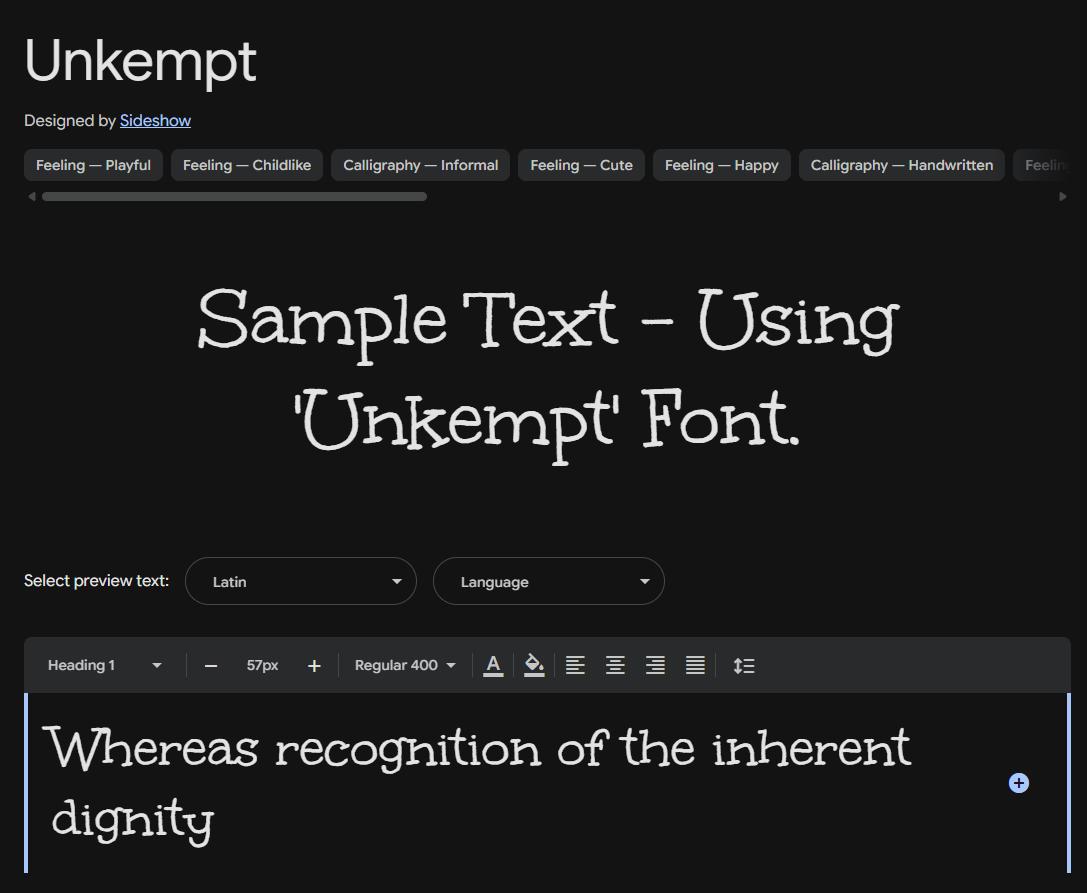
Unkempt, a two-style display family from the Sideshow foundry, masterfully navigates the tension between deliberate disarray and technical precision, offering Regular and Bold weights that subvert traditional typographic rigidity. Engineered with erratic baselines and a generous x-height, the typeface utilizes organic, hand-lettered glyphs to create a rhythmic, informal texture that bypasses the cold geometry of standard sans-serifs. By integrating nuanced stroke variations and robust kerning pairs, Unkempt preserves high legibility despite its distressed aesthetic, making it an essential tool for designers who require a mid-century, storybook-inspired personality without sacrificing the structural integrity of modern OpenType features. This synthesis of "unkempt" charm and professional font engineering allows for a unique visual hierarchy where tactile, humanistic imperfections drive the narrative of the layout.
The Unkempt font family distinguishes itself as a premier display face through its "distressed" and "wacky" aesthetic, merging "informal calligraphy" with a "rugged" textural quality that feels both "sincere" and "loud." Its "handwritten" "calligraphy" features "awkward" yet deliberate letterform irregularities that evoke a "childlike" and "playful" energy, making it an "active" choice for projects ranging from "vintage" signage to vibrant "seasonal" celebrations like "Christmas" and "Holi." Characterized by its "cute" and "happy" disposition, the typeface utilizes expressive strokes and an "excited" visual rhythm to maintain high legibility while projecting a "sincere" charm. Whether deployed in a festive context or a high-energy branding campaign, Unkempt's uniquely "distressed" appearance provides a tactile, "active" depth that conventional scripts lack, bridging the gap between "informal" art and commercial typography.
For enterprises prioritizing cognitive fluency and institutional authority, the Unkempt typeface from the Sideshow foundry presents significant accessibility and branding risks due to its erratic baseline shifts and irregular stroke terminals. While its two styles-Regular and Bold-offer a whimsical, hand-lettered aesthetic ideal for casual display, this deliberate lack of geometric rigor makes it fundamentally unsuitable for high-stakes sectors such as aerospace engineering, medical documentation, or global finance where precise glyph architecture is mandatory for error-free legibility. At small optical sizes, the font's distinctive scrawled terminals and inconsistent x-heights impede rapid information processing, creating a jarring semantic discordance when paired with technical specifications or legal disclosures that require the neutral, high-legibility profiles of neo-grotesque or humanist sans-serifs to maintain professional trust.
The Unkempt font family features hand-drawn, irregular letterforms with a casual, felt-tip marker aesthetic that emphasizes a DIY personality. Its lack of strict baseline alignment and varying stroke widths creates a high degree of visual entropy, reflecting the "planned imperfection" trend found in modern display typography.
This typeface is ideal for the hospitality, toy, and organic food industries where a human touch and approachable branding are essential. Market research indicates that artisanal brands using organic display faces see higher engagement in authenticity-focused consumer segments compared to those using rigid geometric sans-serifs.
Unkempt is generally unsuitable for long-form body text because its irregular kerning and character shapes increase cognitive load for readers. The font's low x-height and high stroke contrast result in significant visual noise when rendered at sizes below 14 pixels on standard DPI screens.
It pairs effectively with clean, minimalist sans-serifs or sturdy slab serifs that provide a stable anchor to its whimsical nature. Designers often utilize a contrast-based pairing strategy, combining the high character variance of Unkempt with a low-aperture, high-legibility face like Open Sans or Roboto.
Unkempt is effective for logos requiring an informal, handcrafted look that breaks away from corporate stiffness. Vector analysis shows that its irregular paths require careful anchor point optimization to maintain clarity when scaled down to favicon or small-format print sizes.
The typeface projects a playful, spontaneous, and rebellious tone that evokes a sense of nostalgia and creative freedom. Semiotic analysis of casual display faces suggests they trigger positive emotional responses by humanizing digital interfaces through organic, non-linear forms.
Yes, Unkempt performs well in high-resolution print for posters and packaging, where its textured outlines can be fully appreciated. At 300 DPI or higher, the subtle "jitter" in its vector paths provides a tactile quality that mimics the physical bleed of ink on porous paper stock.
In digital UI, Unkempt is best reserved for accents, headers, or gamified elements rather than functional navigation components. Accessibility testing indicates that while it excels in hero sections, its non-standard glyph proportions can lead to inconsistent line-box heights within CSS flexbox containers.
The Unkempt family primarily consists of a regular and a bold weight, allowing for basic hierarchical distinction within a design. While lacking a full range of font-weight values from 100 to 900, the Bold variant significantly increases the stroke-to-counter ratio, enhancing its impact for H1-level display headers.
Unkempt should typically be placed at the top of the typographic hierarchy as a primary headline or hero font. Because of its high visual weight and distinctive personality, it acts as a dominant focal point, necessitating more neutral secondary typefaces to maintain proper visual equilibrium.